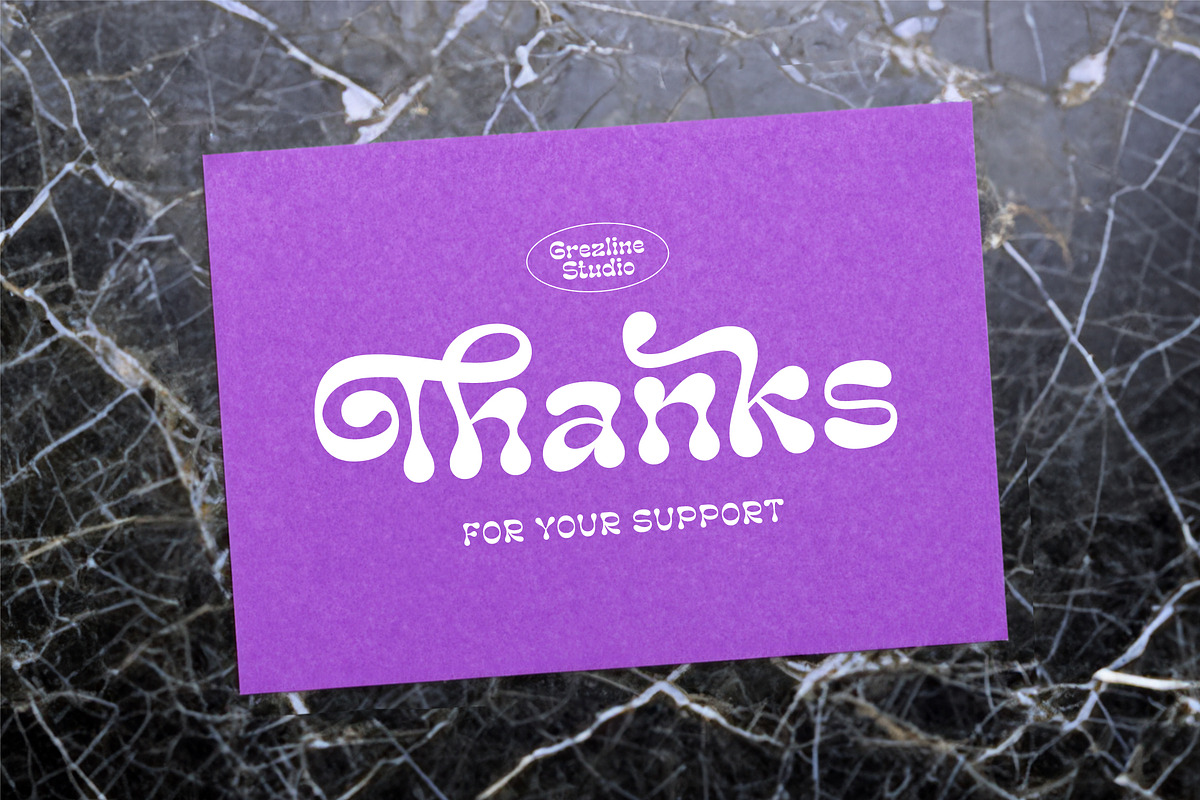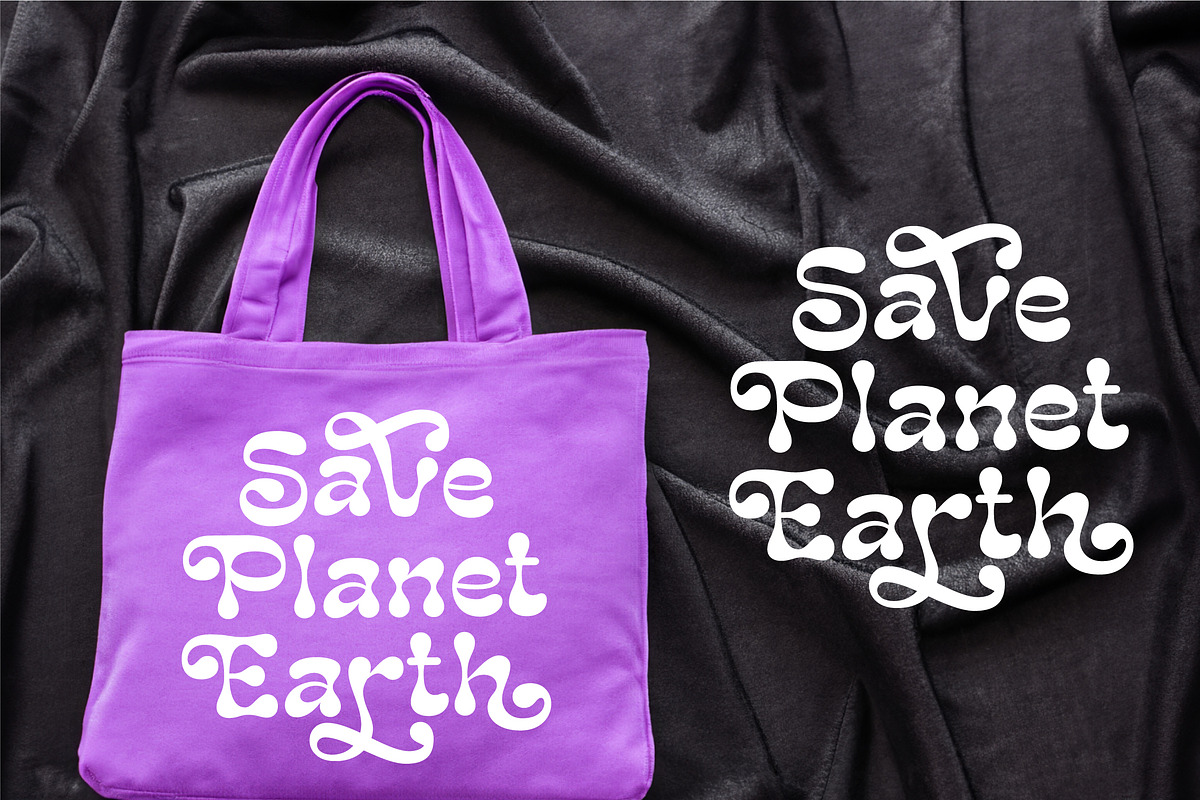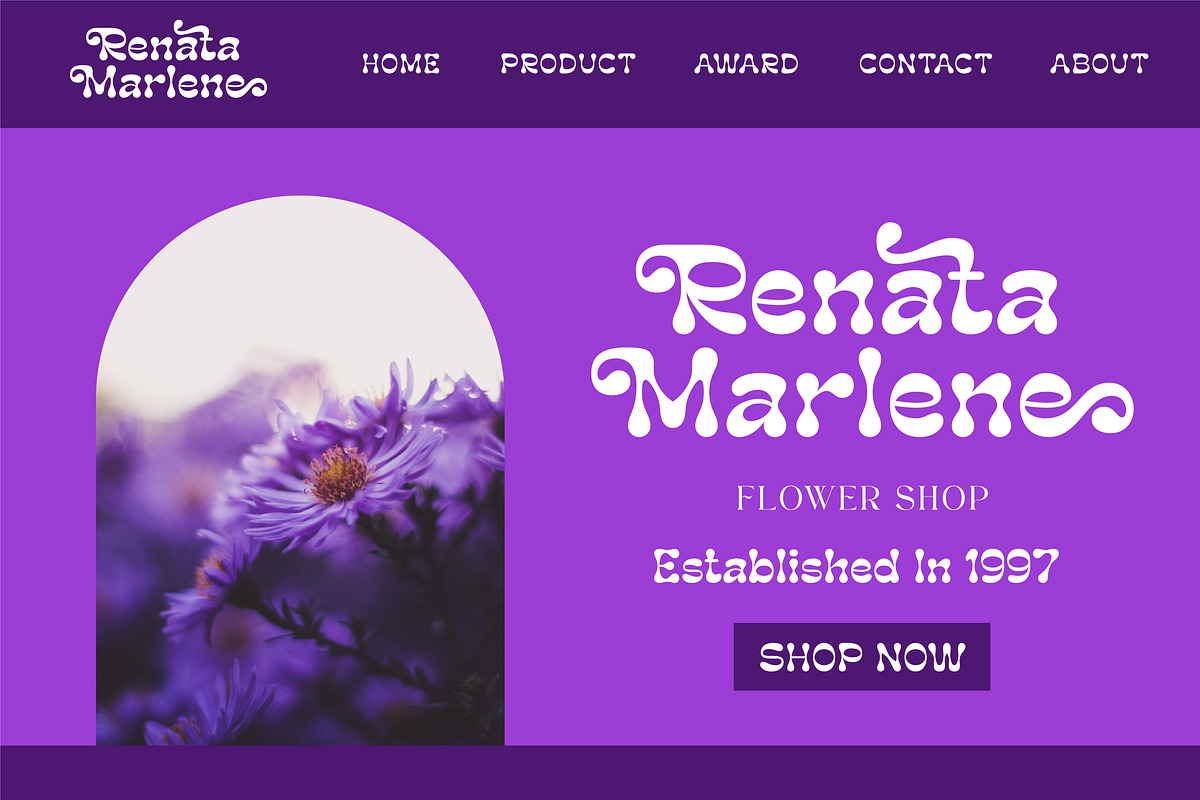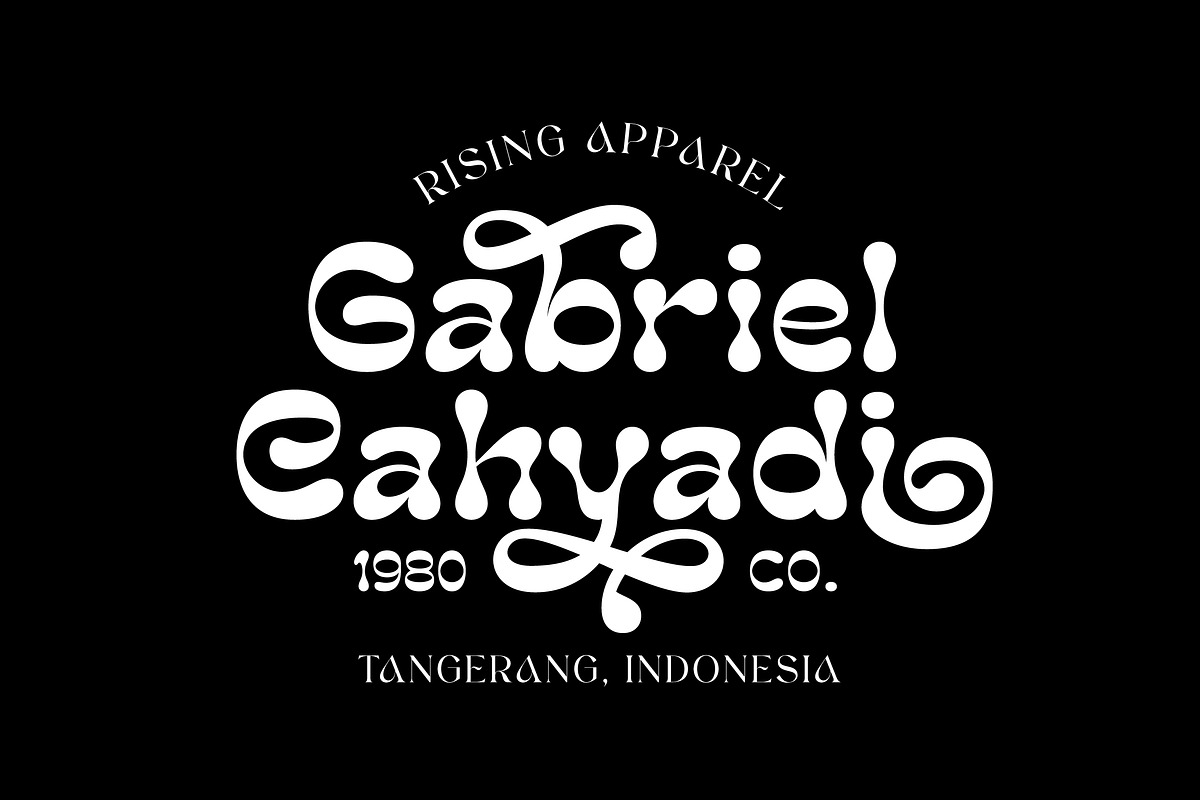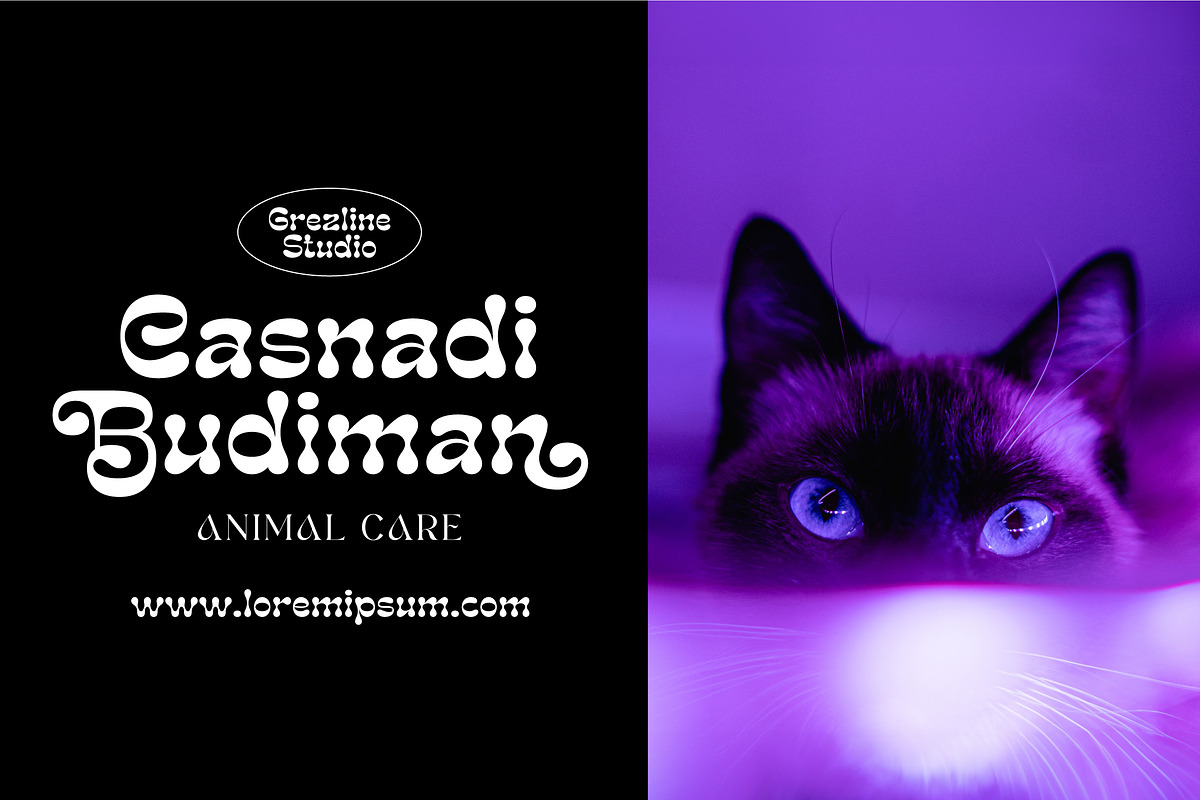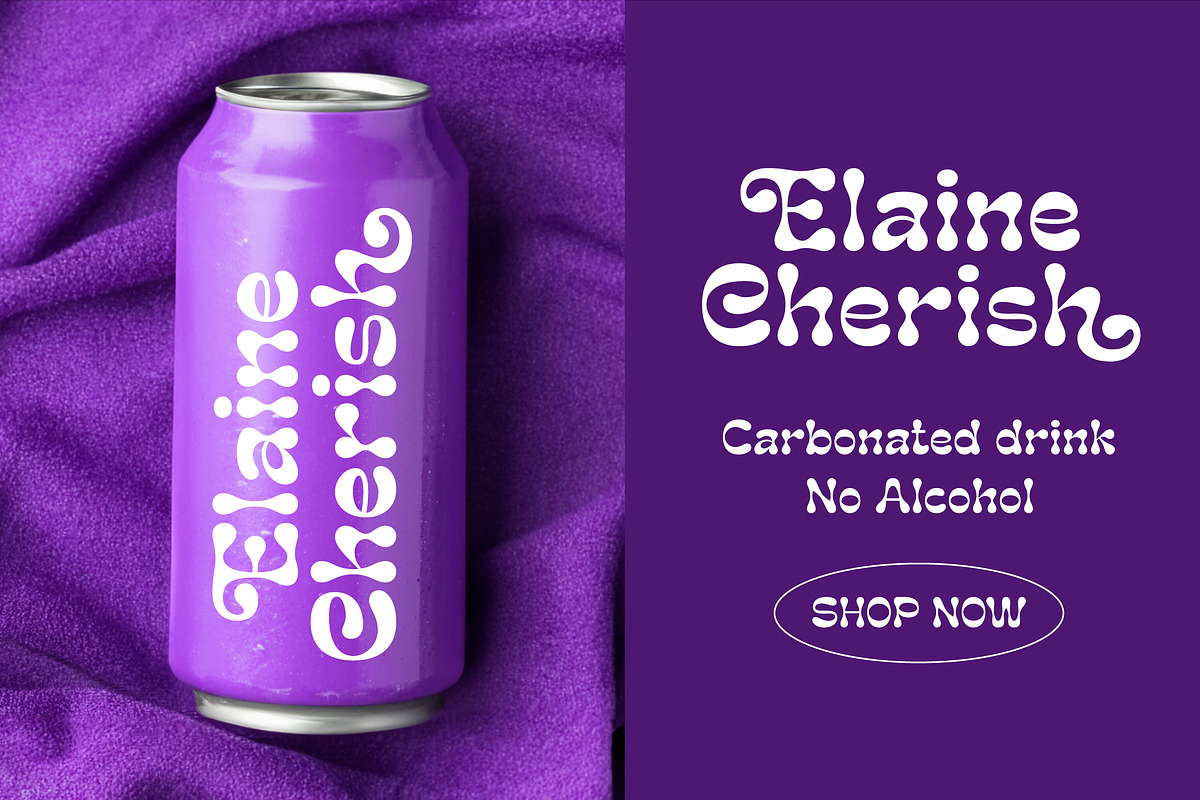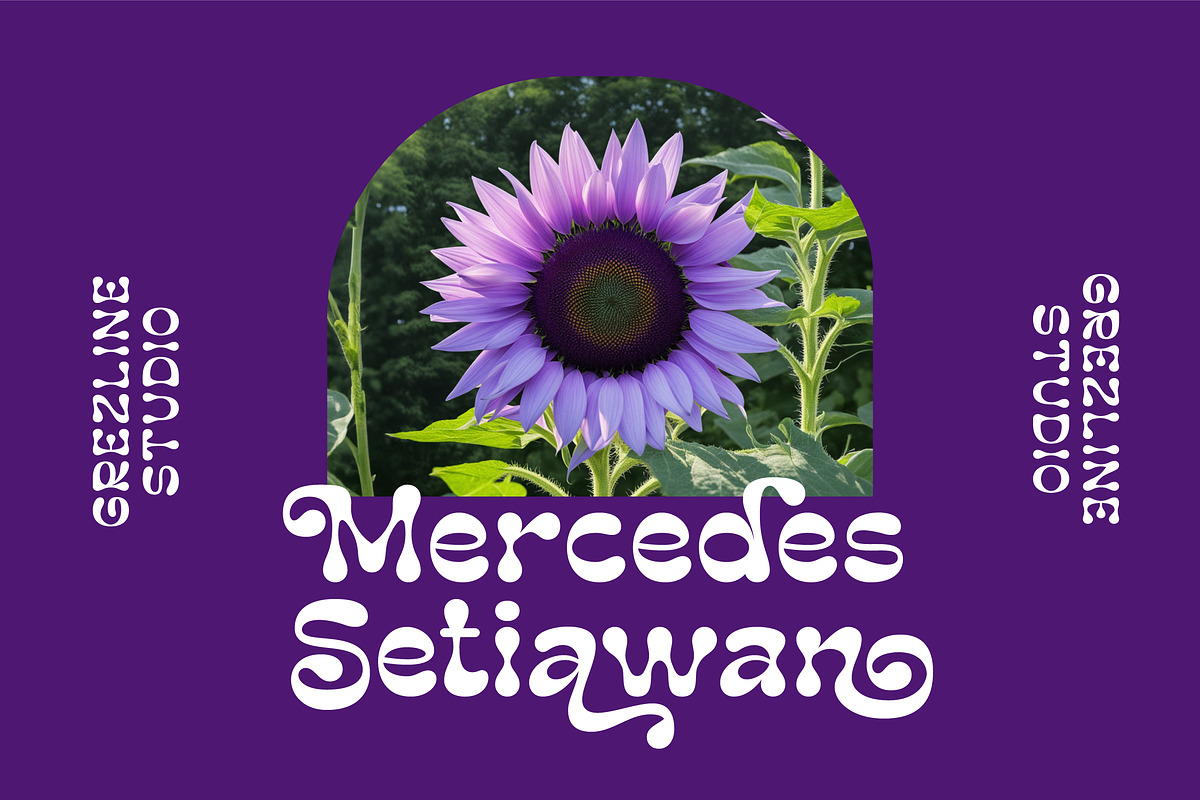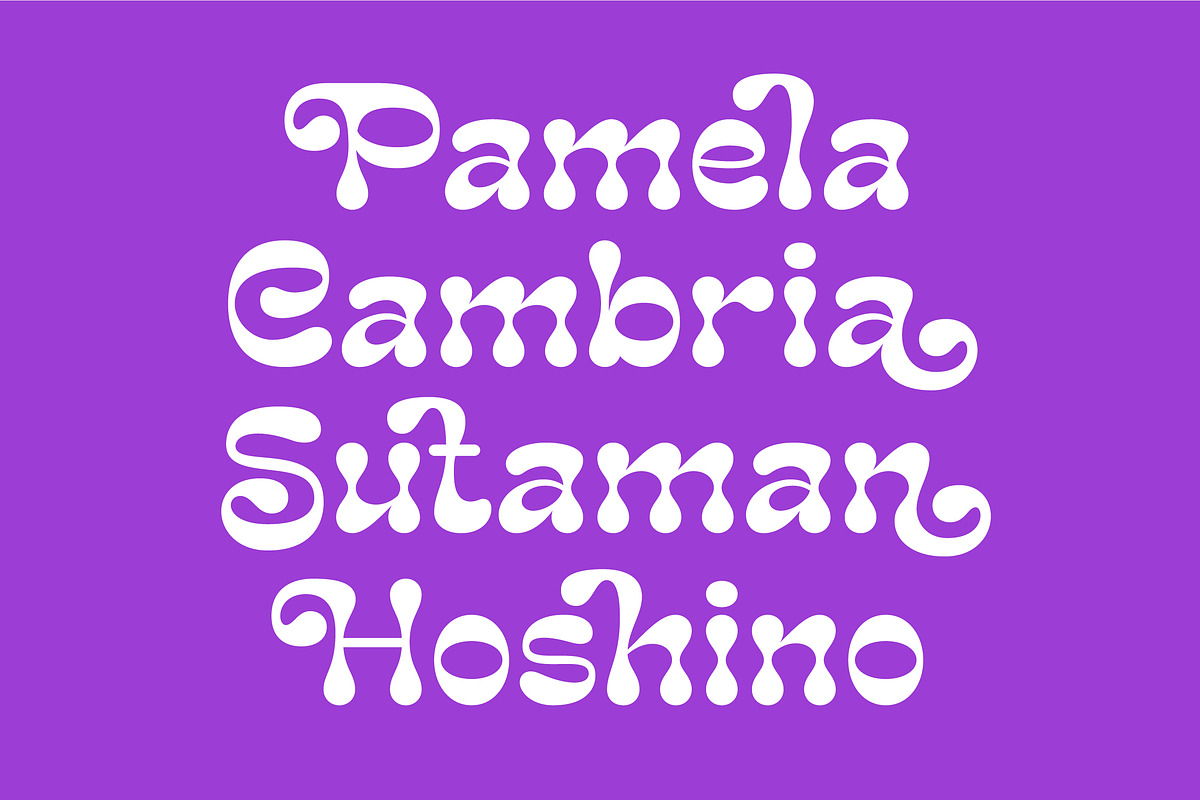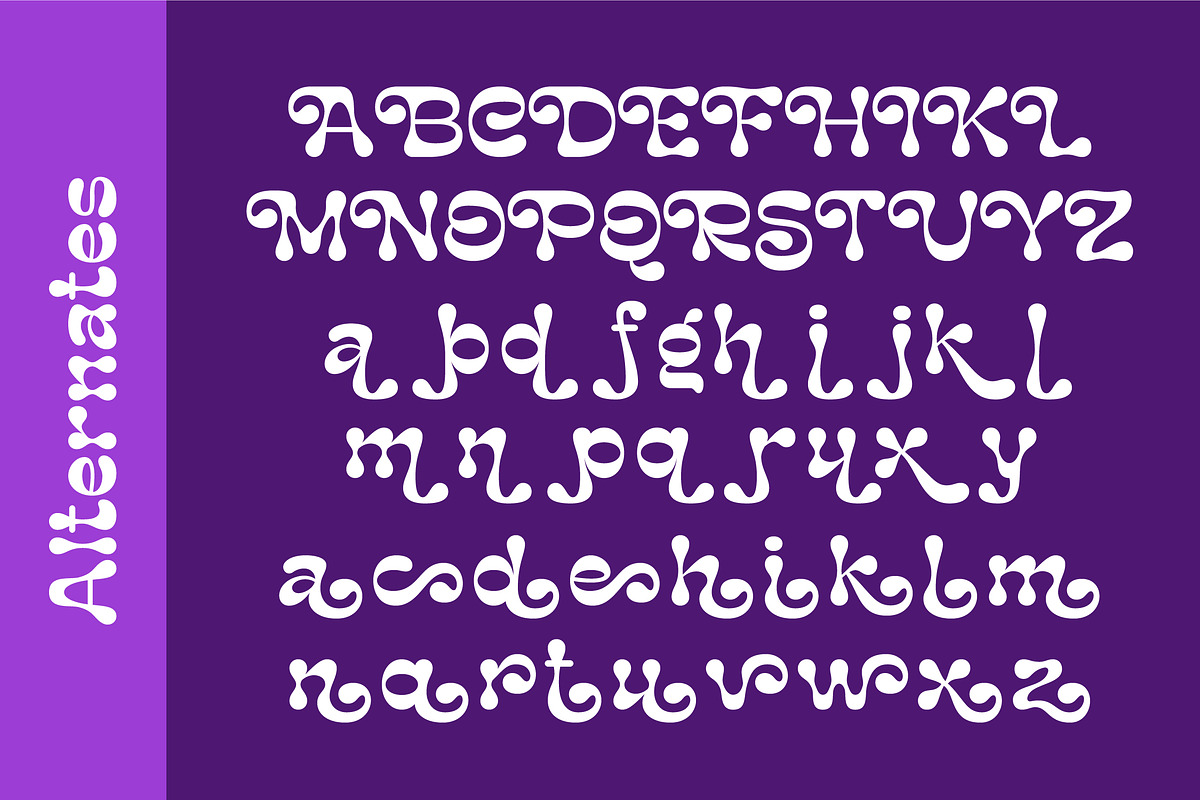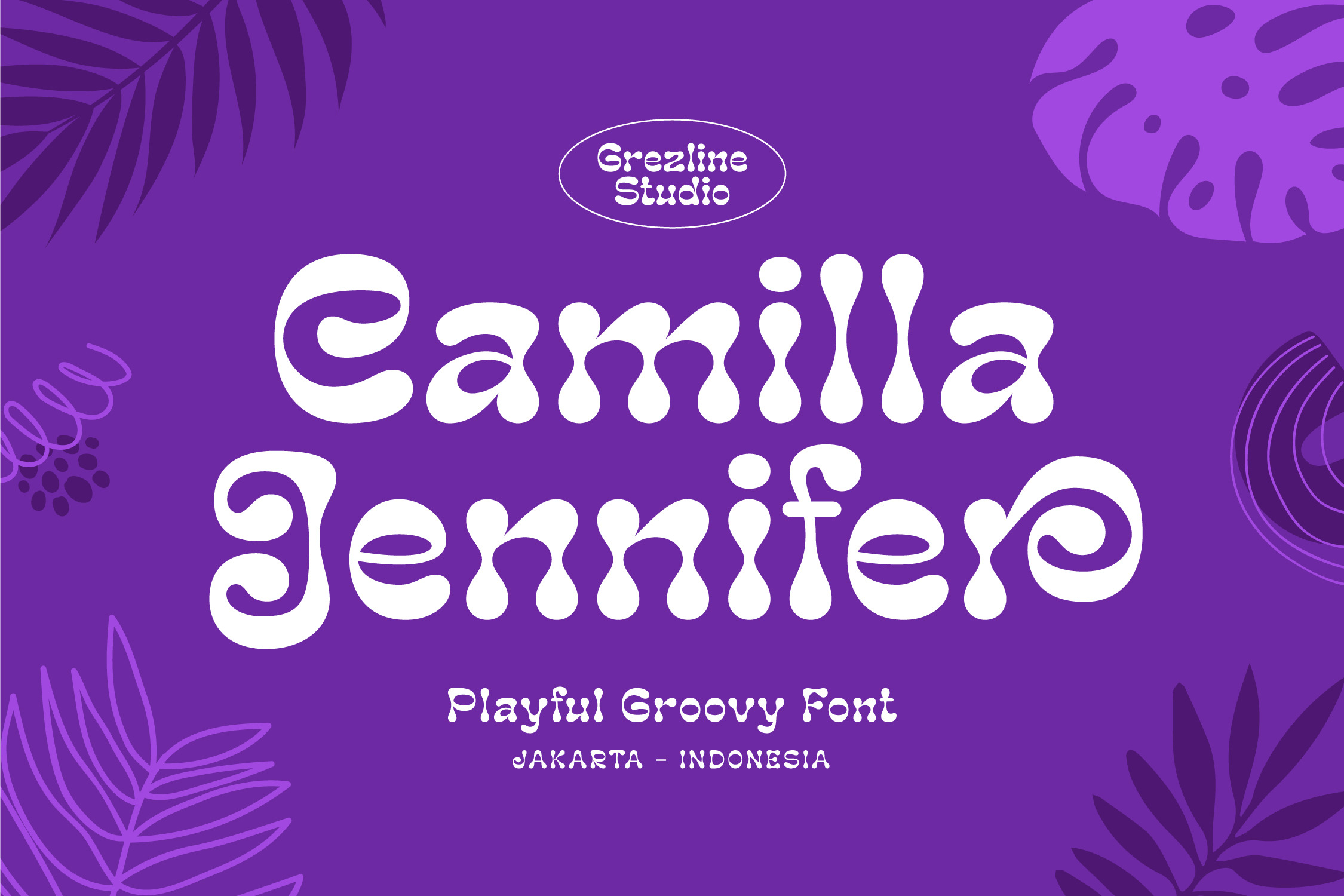
Camilla Jennifer - Groovy Font
Camilla Jennifer is a playful groovy font with a lot of alternate glyphs. This font is designed to captivate attention and delivers a funky and psychedelic vibe. Camilla Jennifer font is also usable in a wide range of works such as logos, covers, posters, quotes, product packaging, merchandise, social media and much more! Use this font to add a touch of groovy style to your designs.
- Ligature & Alternate glyphs
- Multilingual Language